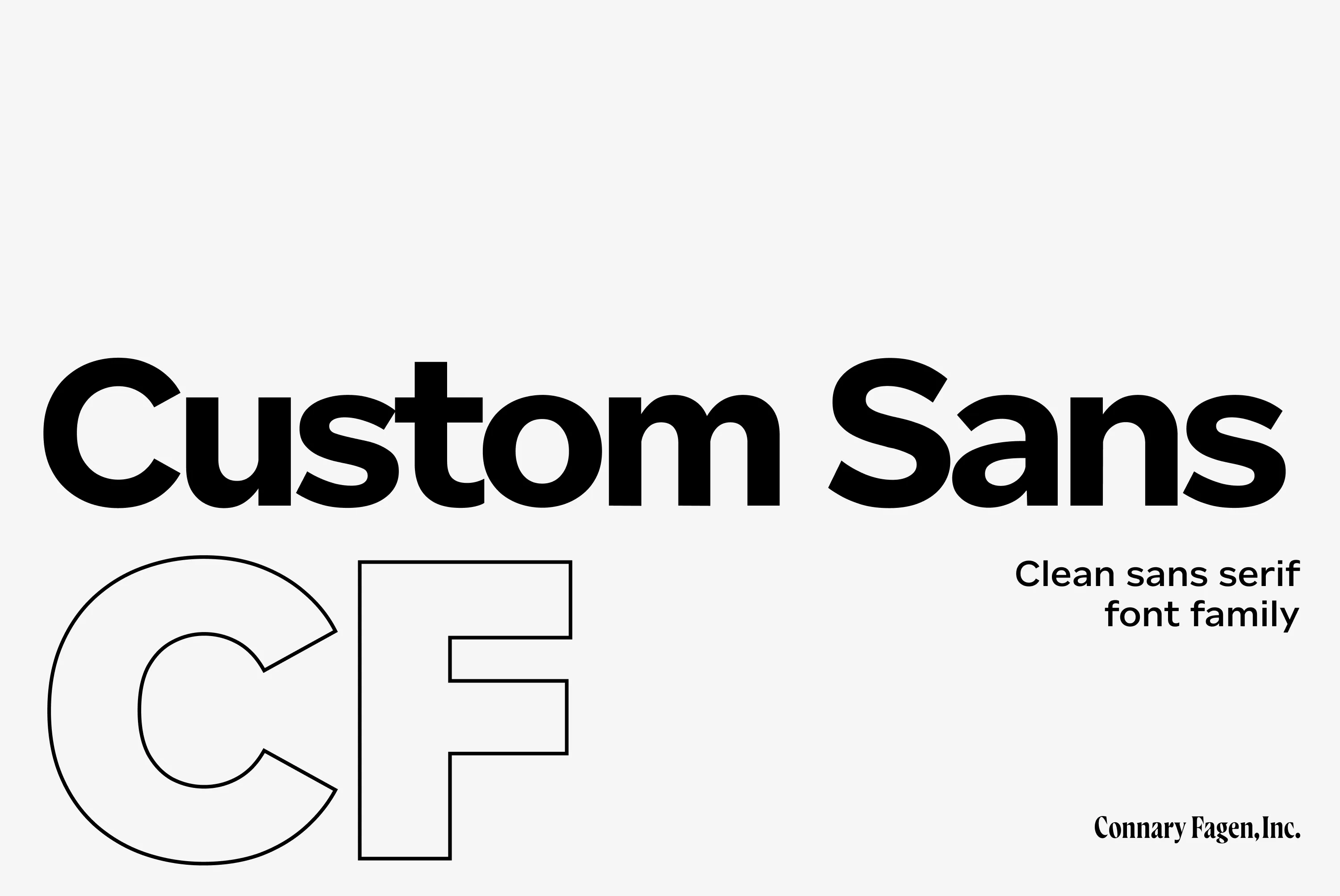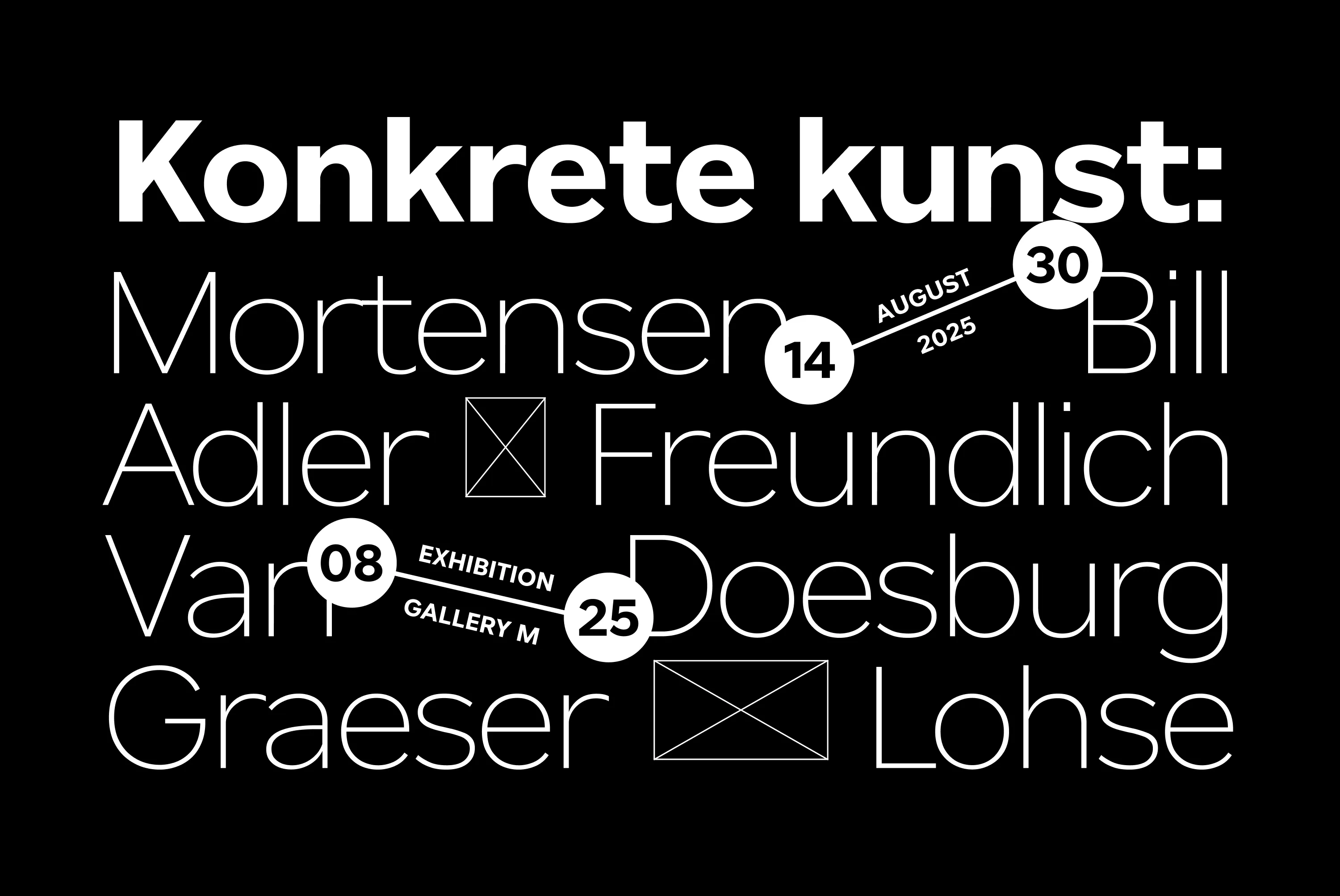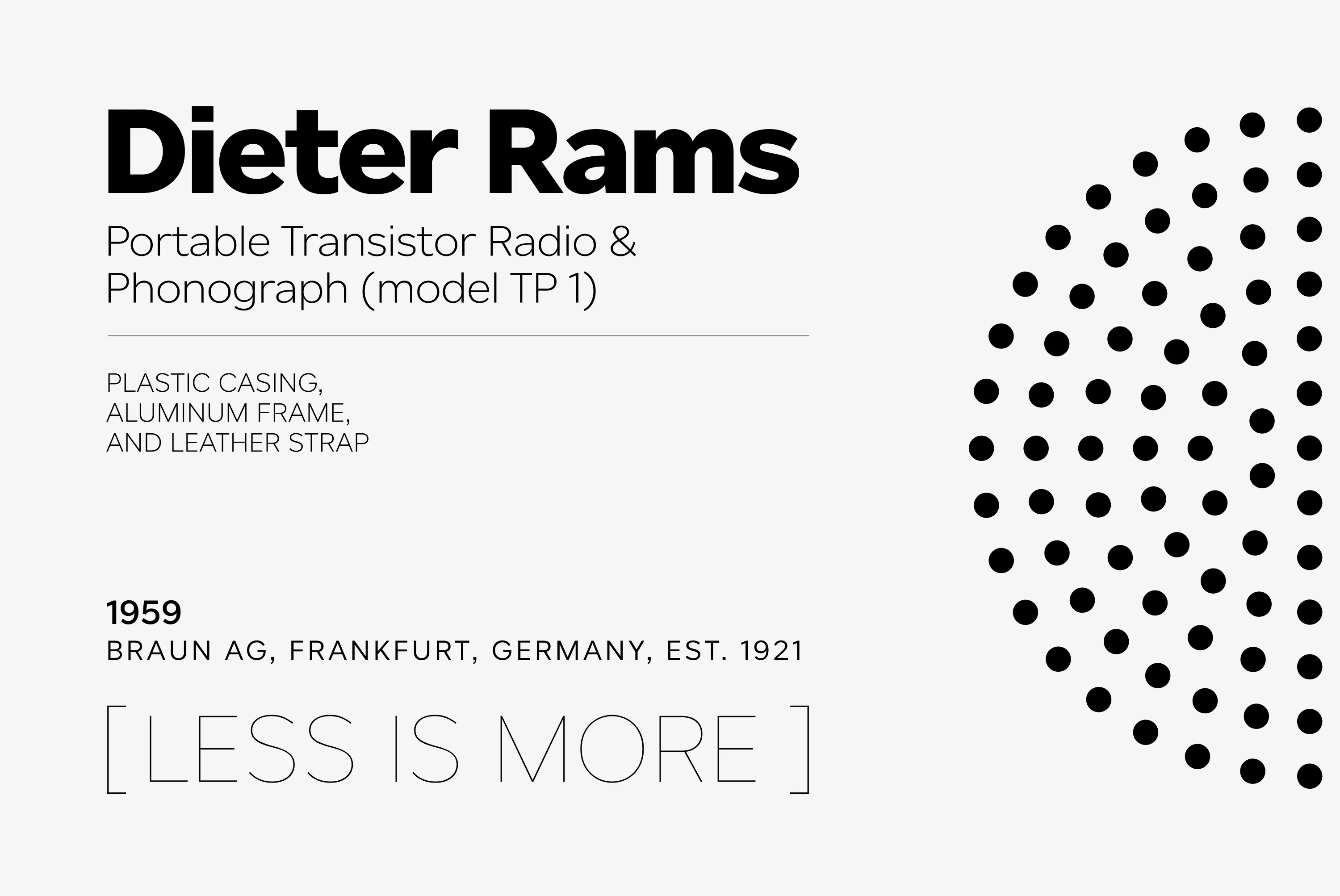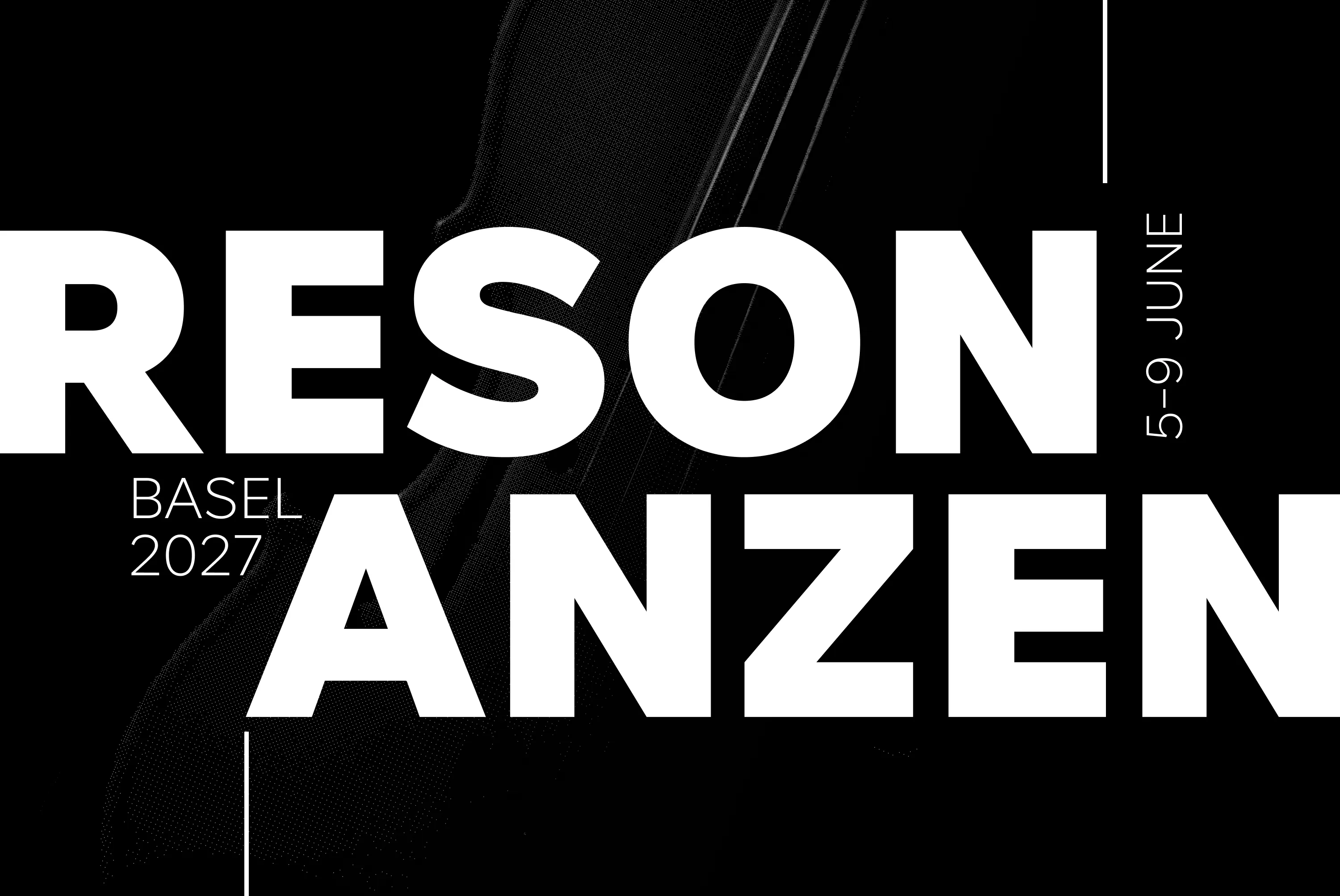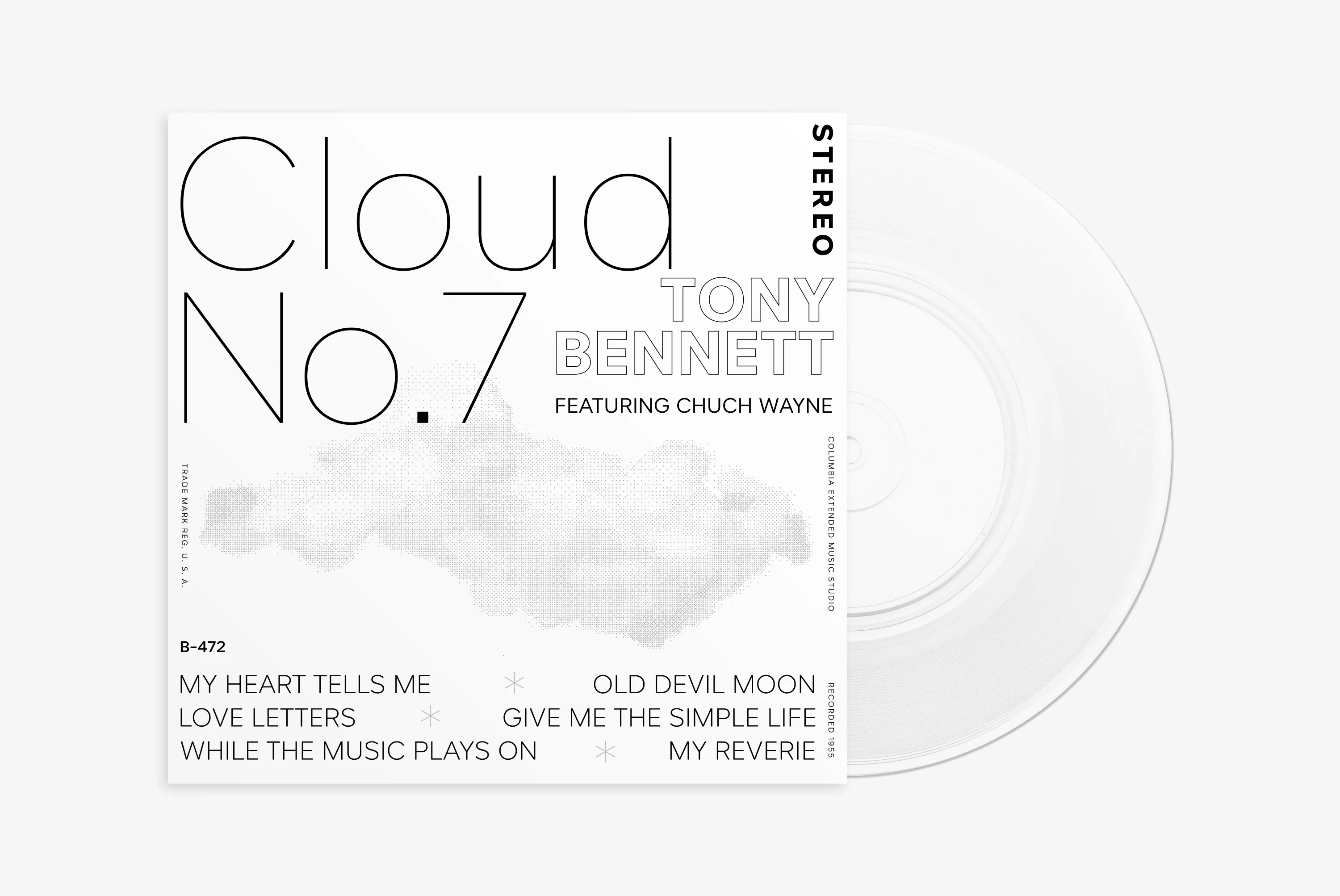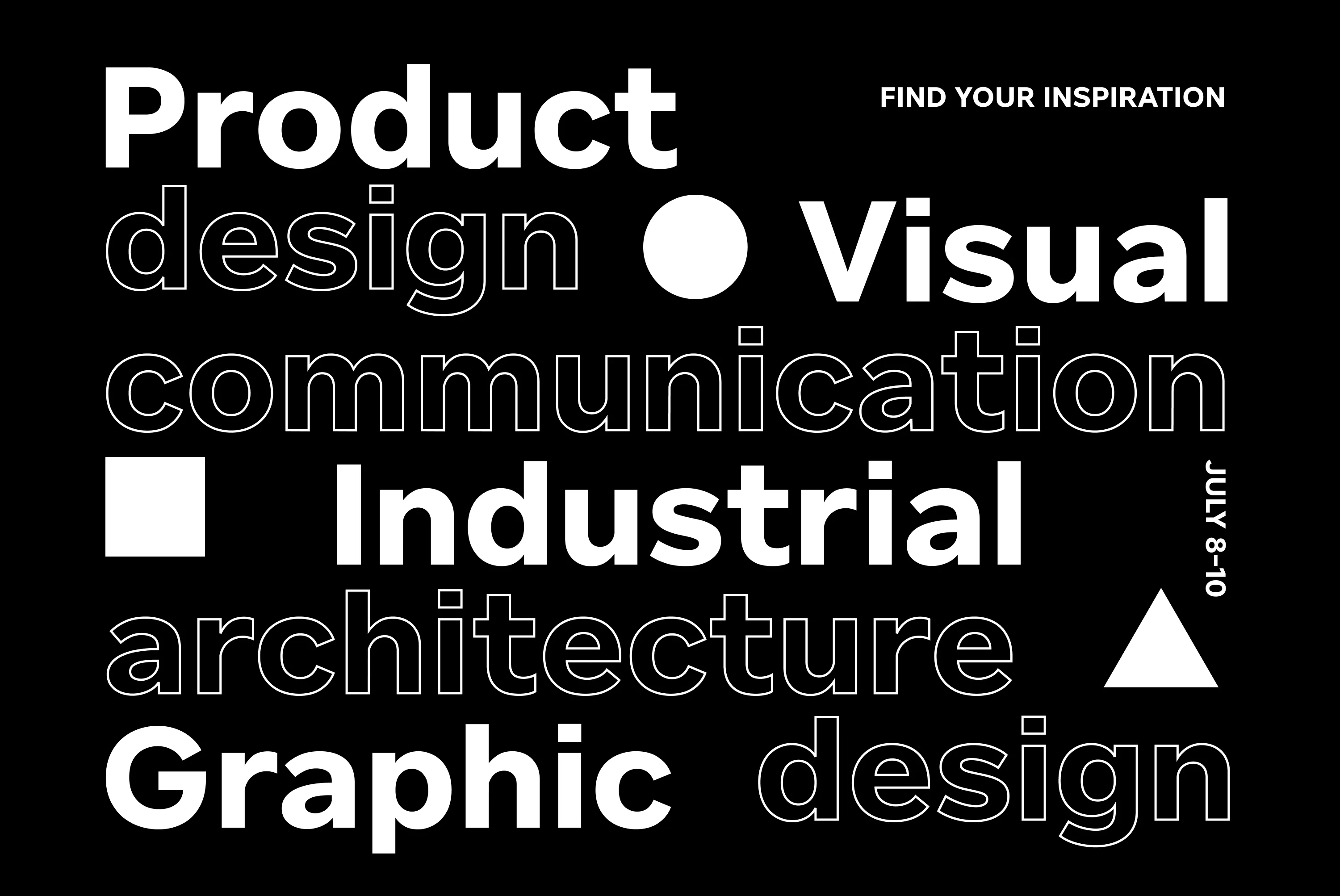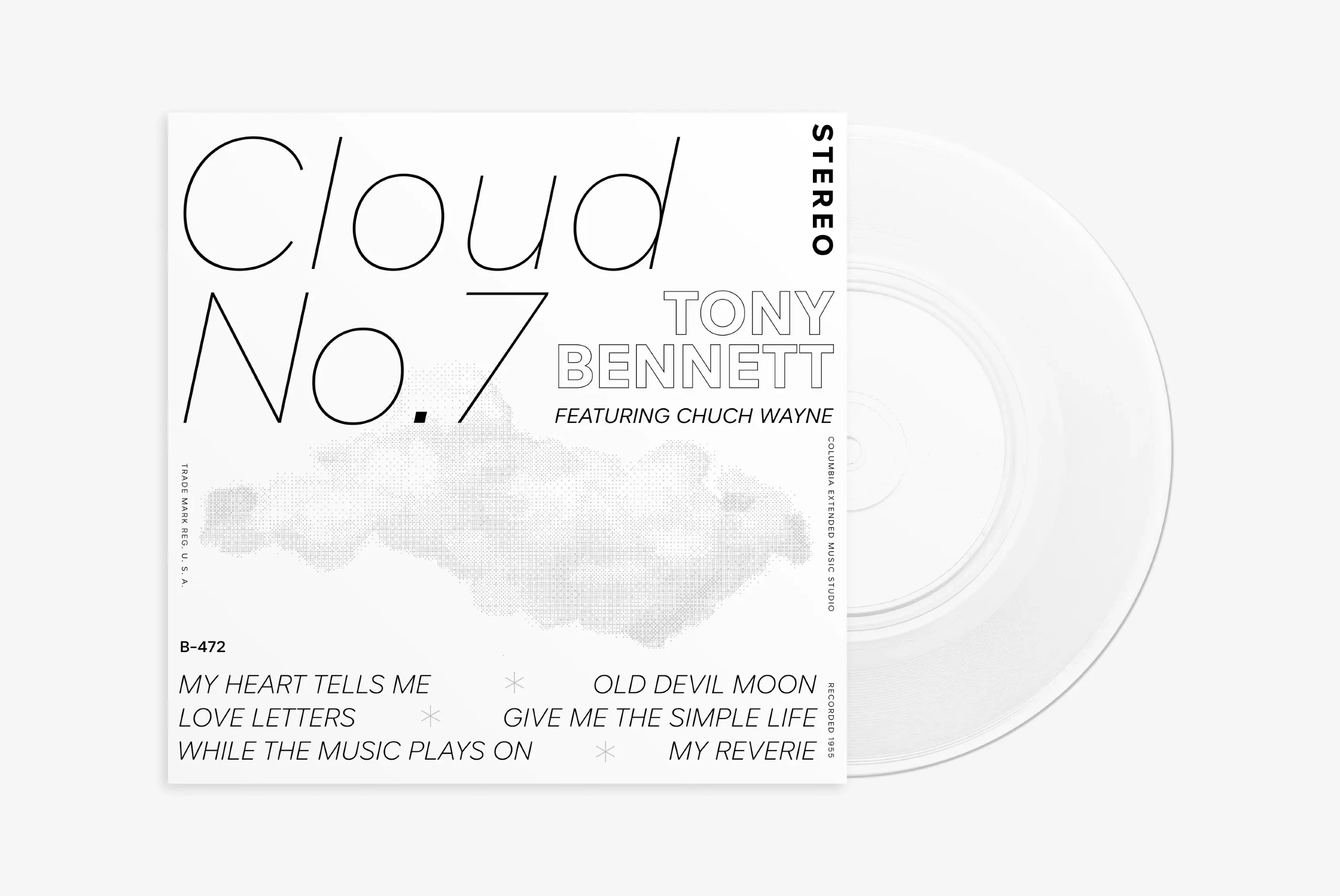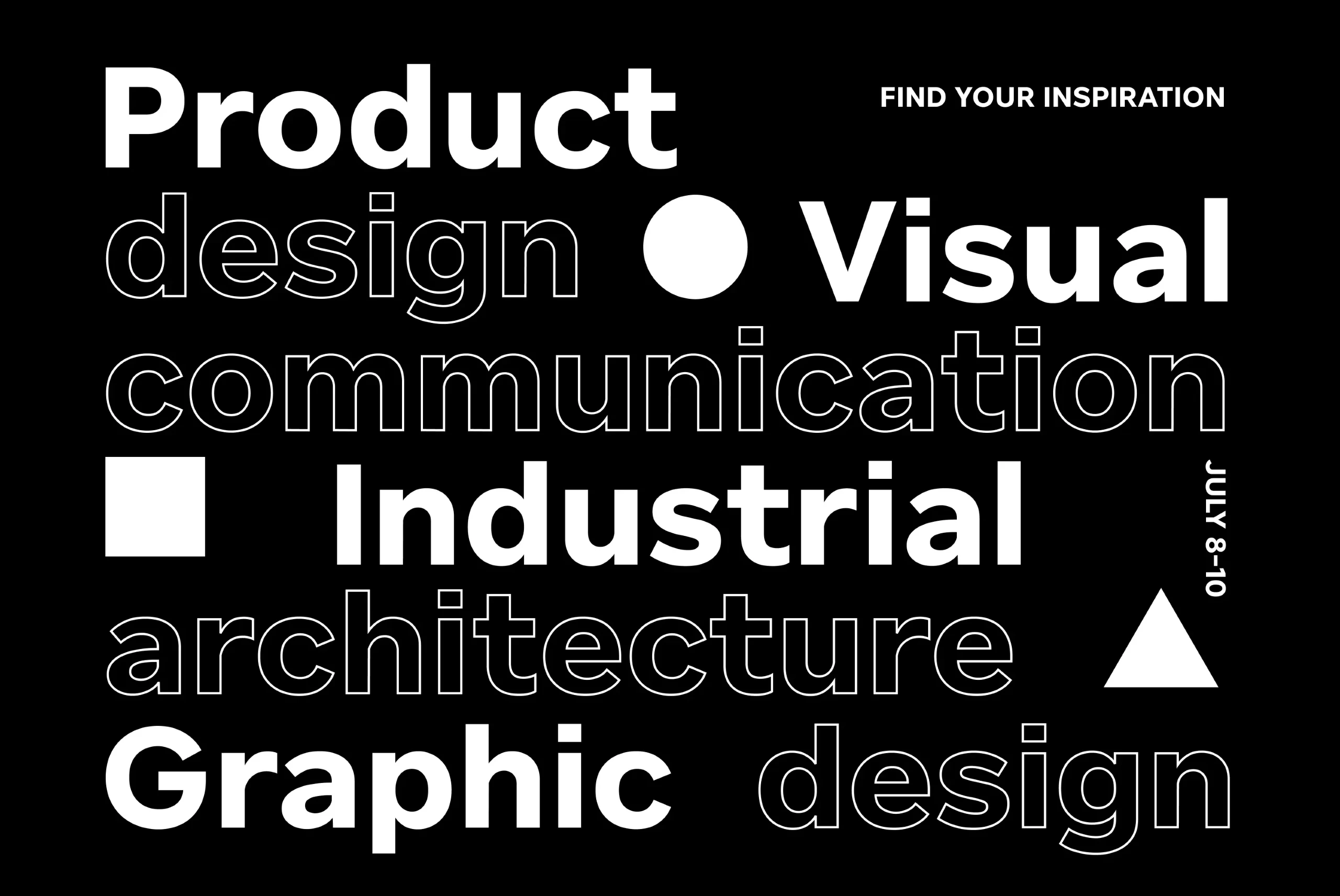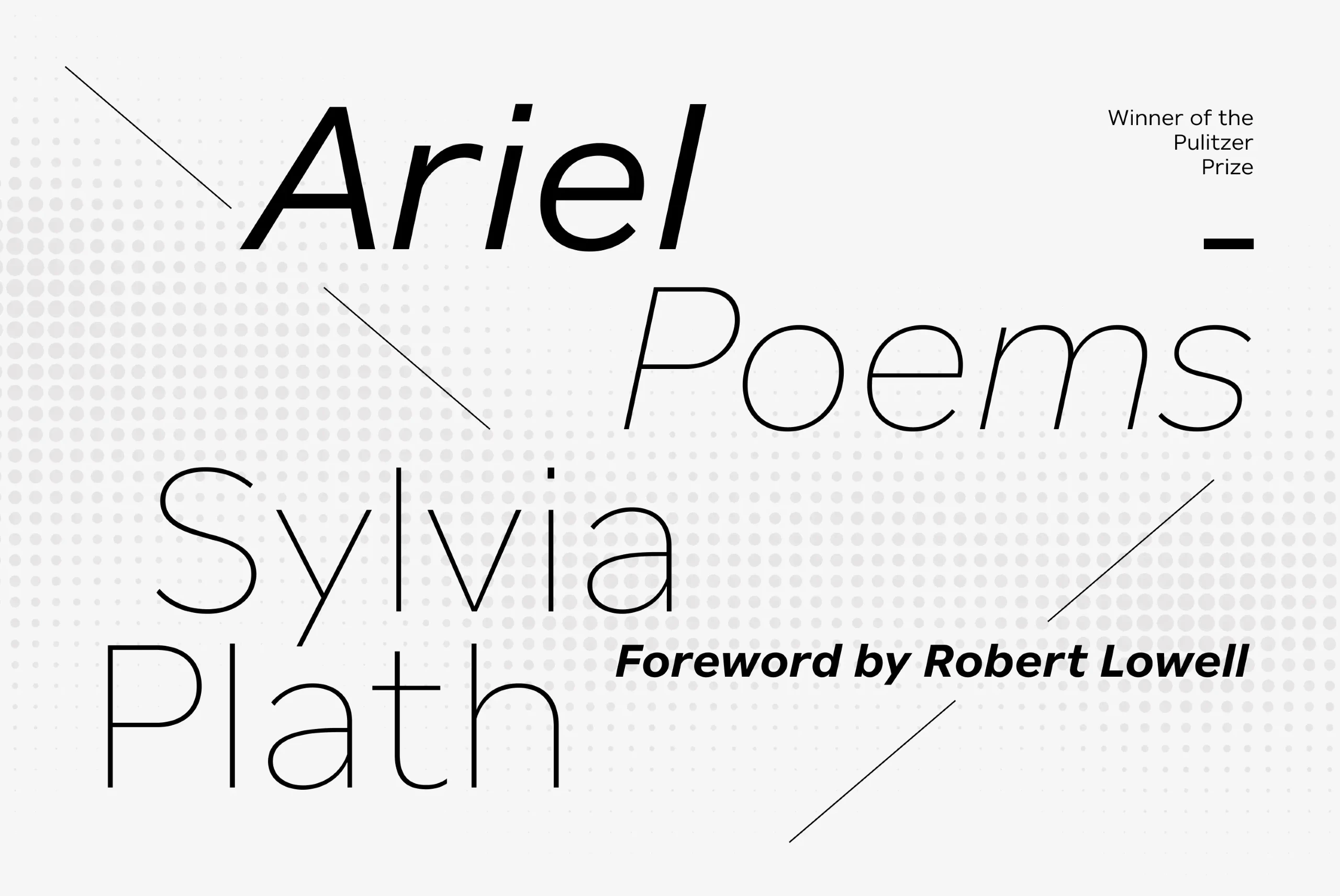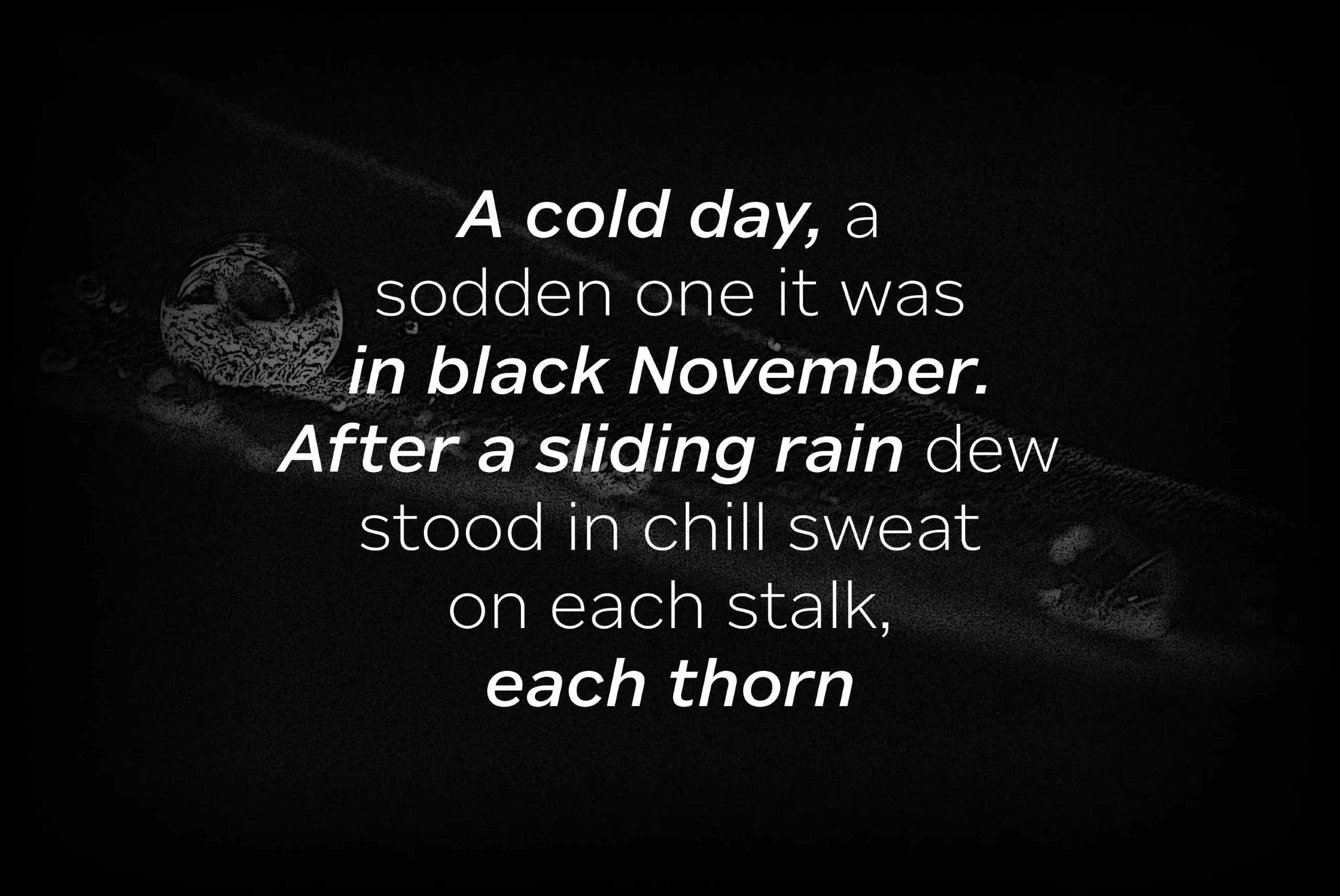
Custom Sans
Custom Sans CF is a workhorse geometric sans serif. Designed to be reliable, its even rhythm and open shapes prioritize legibility across sizes, striking a balance between casual confidence and universal clarity. However, with a large x-height and a clean, yet familiar utilitarian structure, it also works well in display use. Custom Sans is a versatile choice for designers of branding, packaging, publishing, and interface design. Available in 9 styles from Hairline to Black with matching Italics.
nine Weights in Latin Script